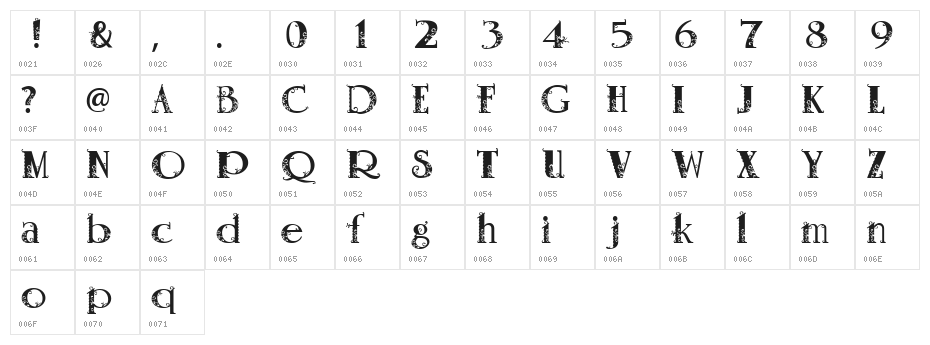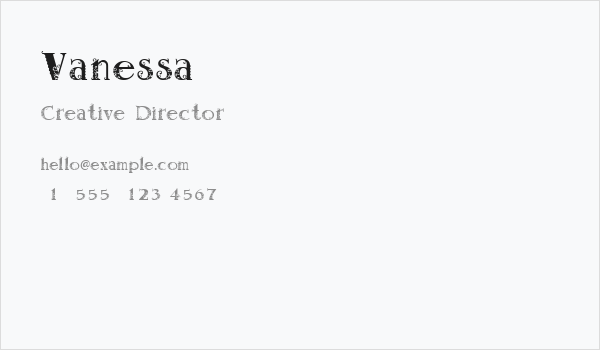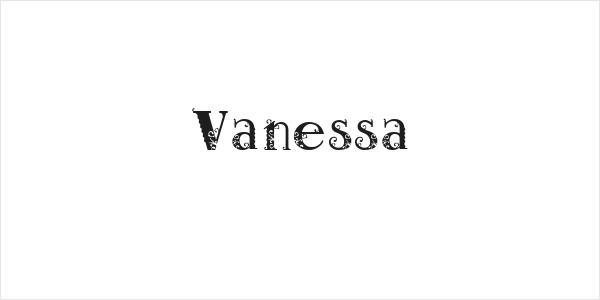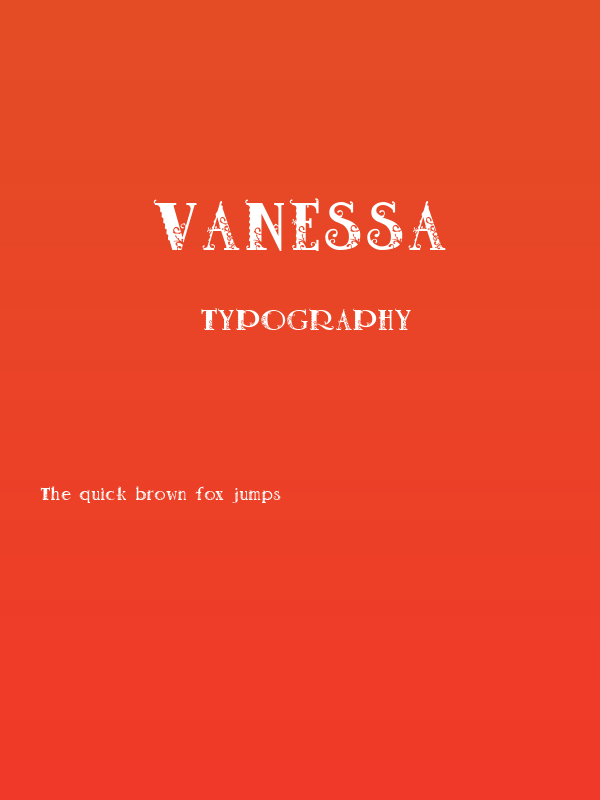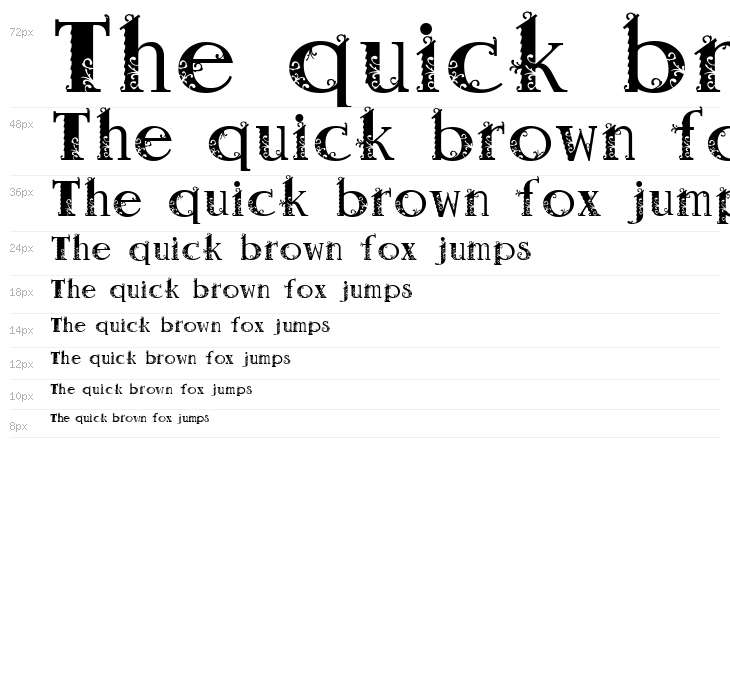
Vanessa Font
Vanessa Description
This font features an ornate and decorative style, characterized by intricate floral and vine-like embellishments integrated into each letterform. The uppercase and lowercase letters maintain a consistent design theme, with the embellishments adding a touch of elegance and sophistication. The numerals and special characters also follow this decorative pattern, ensuring a cohesive look across all characters. The font's unique style makes it stand out, ideal for projects that require a touch of luxury and artistic flair.
| Proposed Projects | Ideal for wedding invitations, luxury branding, decorative posters, and artistic projects that require a sophisticated and elegant touch. |